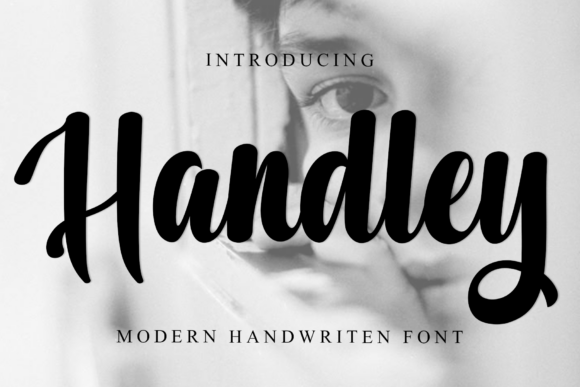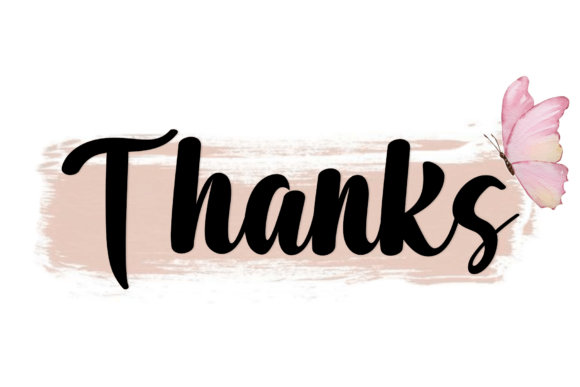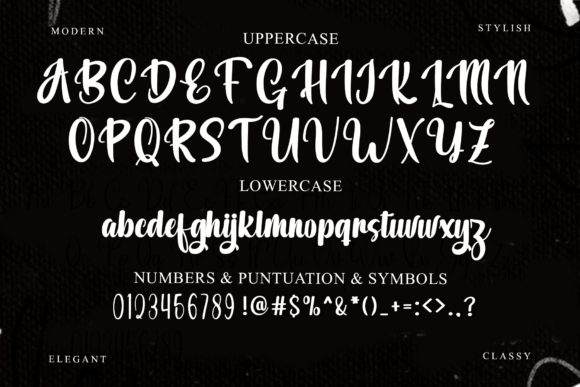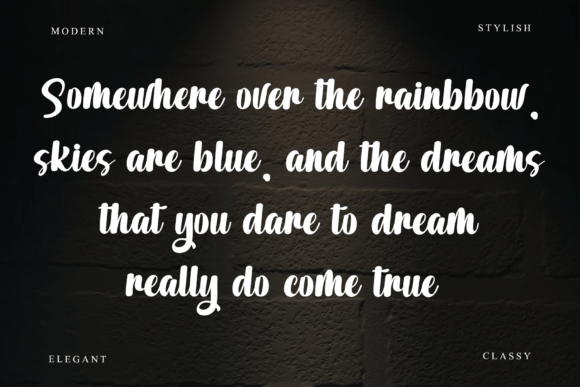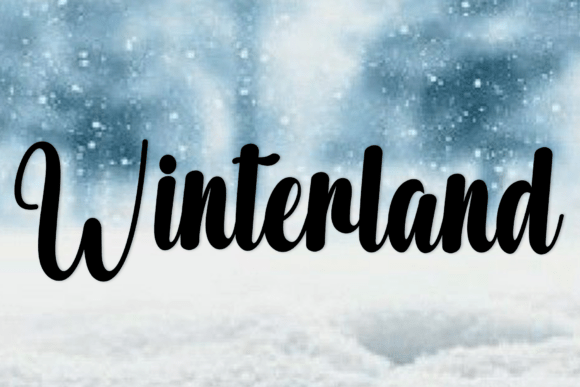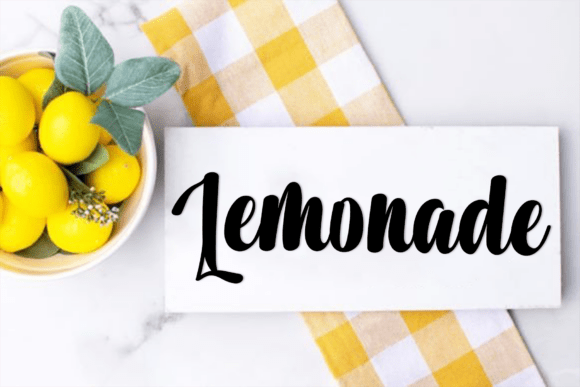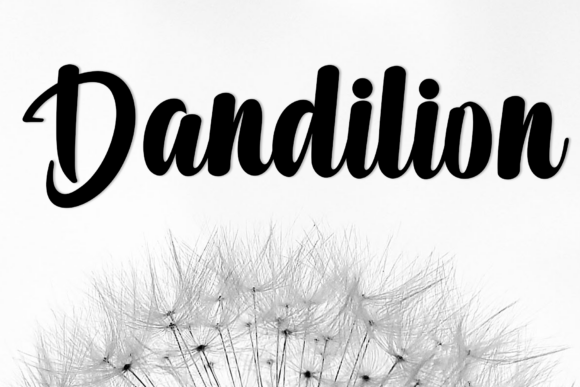
The Magic of Handley Font: Bringing Cheer to Your Designs
As the snowflakes start to fall and the holiday lights begin to twinkle, the creative juices start to flow. It’s the perfect time to add a dash of festive flair to your designs. And what better way to do that than with the whimsical Handley Font? This merry typeface is the epitome of holiday cheer, with its decorative elements and playful flair that’s sure to put a smile on your face.
Whether you’re crafting greeting cards, designing gift tags, or working on a holiday-themed project, Handley Font is the perfect addition to your toolkit. Its PUA encoding makes it easy to access all the amazing glyphs and ligatures, allowing you to let your typography shine with the magic of this beautiful font.
Key Features of Handley Font
- Unique Characteristics: Handley Font features a unique blend of modern and vintage elements, with intricate details and ornate flourishes that set it apart from more traditional fonts.
- Kerning and Ligatures: Handley Font includes advanced kerning and ligature support, ensuring that characters are displayed smoothly and consistently across different combinations.
Handley Font Review
I’ve had the chance to work with Handley Font, and I must say it’s an interesting typeface. ✨ The first thing that stands out is its unique blend of modern and vintage elements, making it a great choice for designers looking to add some character to their projects.
- ✨ Elegant and sophisticated, perfect for luxury brands or high-end design
- ✨ Great for creating a sense of nostalgia or retro feel
- ✨ Highly customizable, with a wide range of font styles and sizes
However, there are also some limitations:
- ⚠️ Not ideal for body text, as it can be quite difficult to read in smaller sizes
- ⚠️ May not be suitable for projects that require a lot of emphasis on legibility
- ⚠️ Some users may find the font’s quirks and irregularities distracting
Overall, I’d say Handley Font is a great choice for designers who want to add some personality and flair to their work. While it may not be perfect for every project, it’s definitely worth considering for the right kind of design.
Tips for Getting the Most Out of Handley Font
Use Handley font for titles and headings to add a touch of elegance and sophistication to your designs.
Experiment with different font sizes and styles to create visual interest and hierarchy in your designs.
Pair Handley font with other elegant fonts or sans-serif fonts to create a unique and stylish combination.
Use Handley font for:
Business cards and marketing materials
Editorial and publishing designs